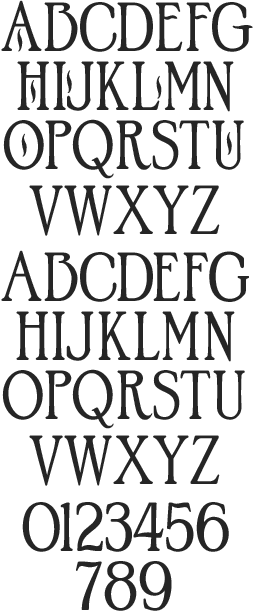
LHF Towne Hall contains a special OpenType feature (for supported applications) which automatically substitutes plain uppercase characters for the second letter if two decorative caps are typed together (with the exception of same letter pairs such as AA or LL). This prevents the font from appearing overly decorative and hard to read. You can override this function by unchecking "Ligatures" in your application's character palette.
If your program does not support automatic ligatures, it is suggested that you follow the above example by not using two decorative letters together. But instead manually substitute the plain caps (located on the lowercase keys) when necessary. |